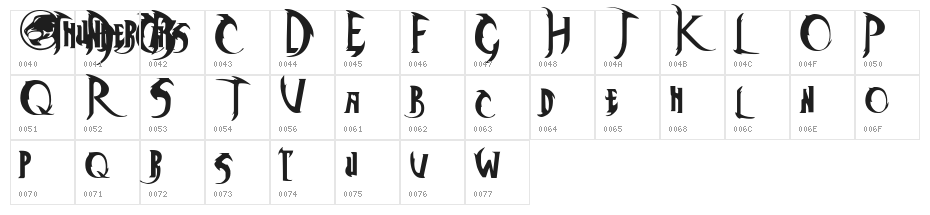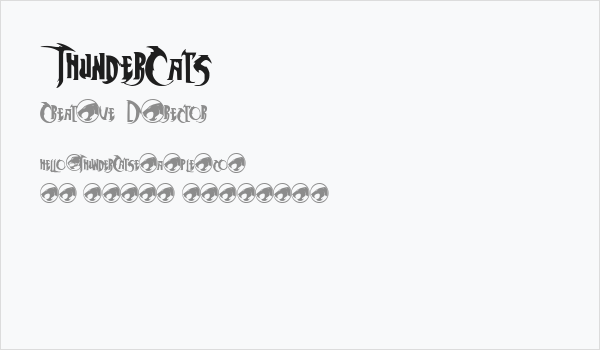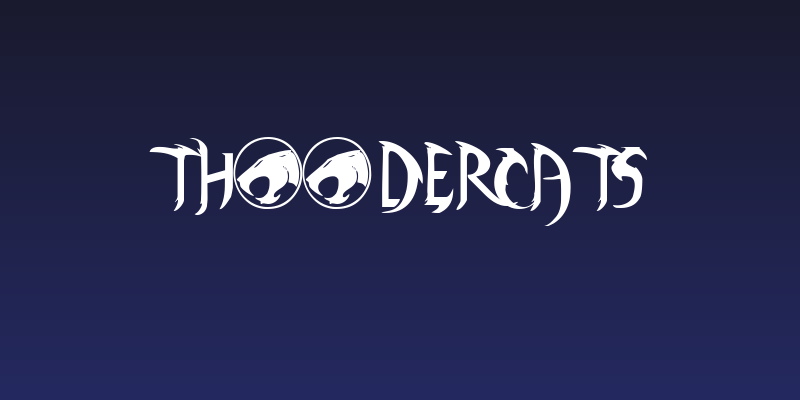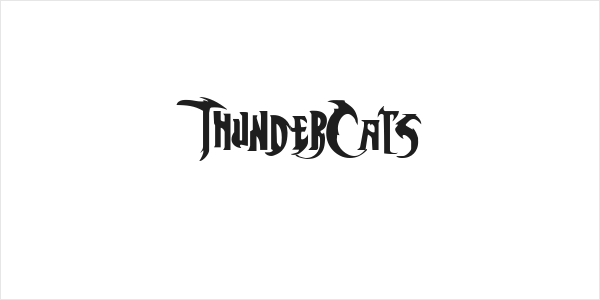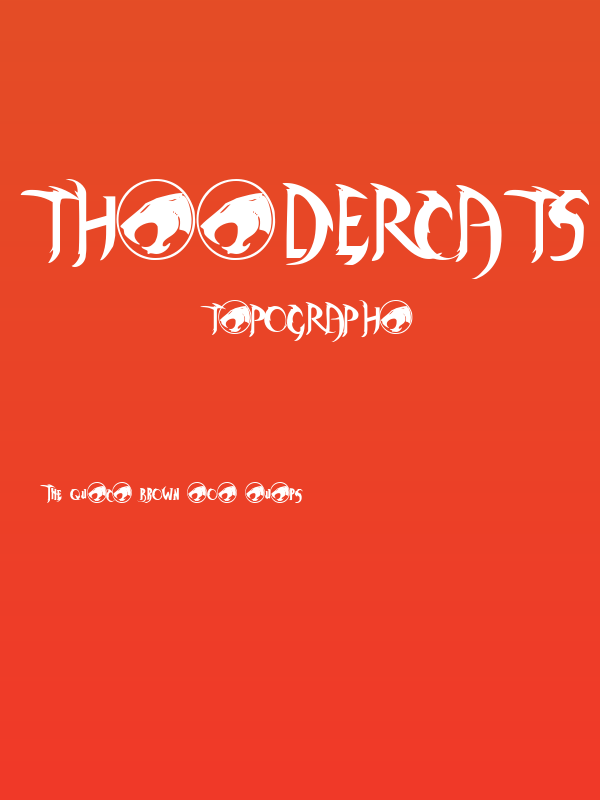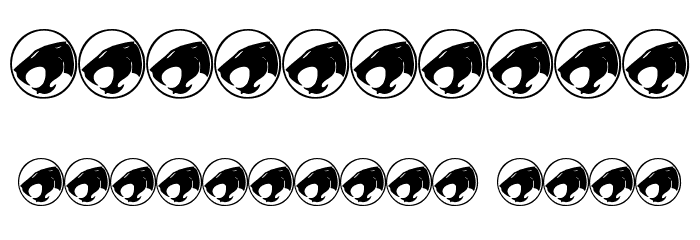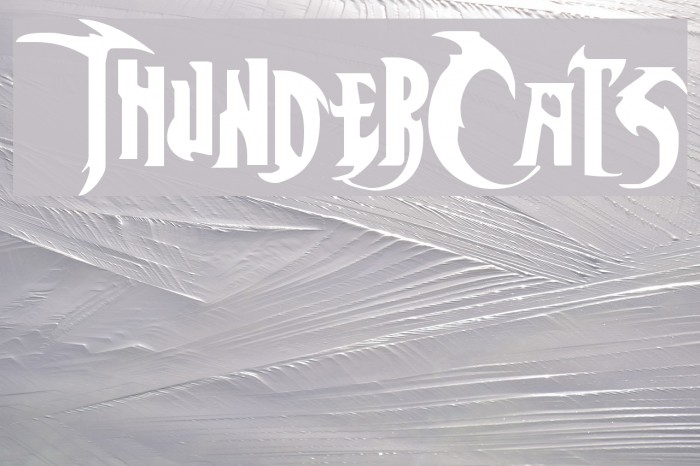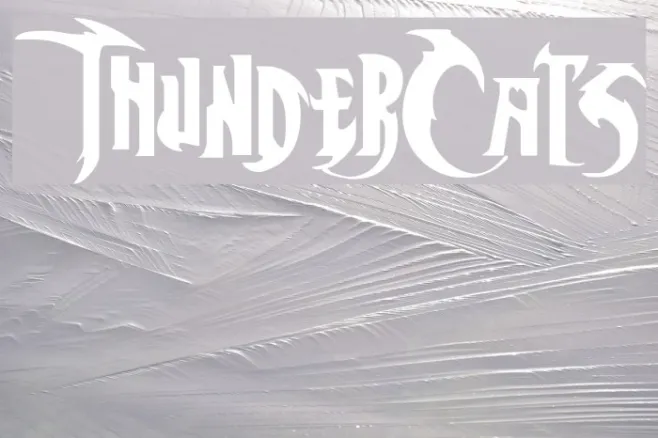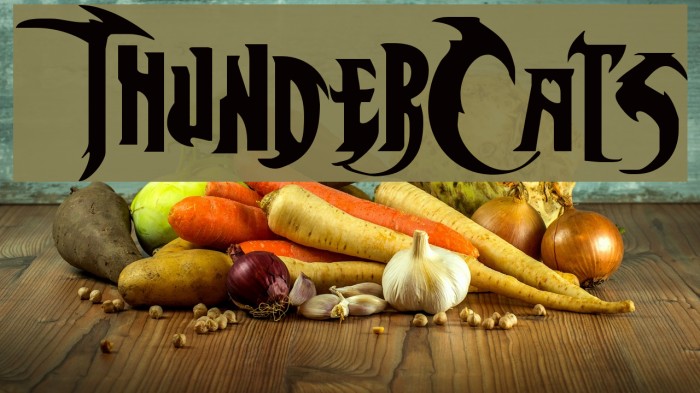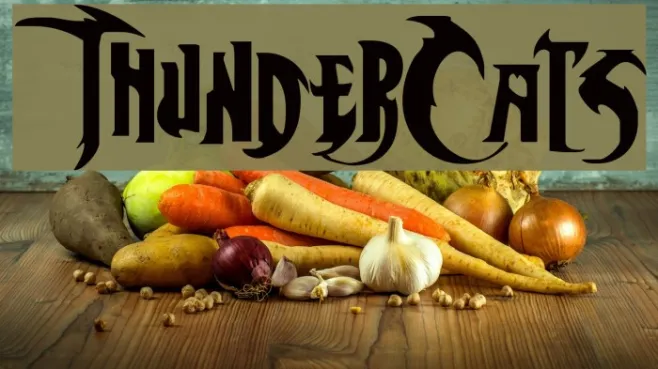
ThunderCats Font
ThunderCats Description
This font features a bold and dynamic design with sharp, angular edges and a sense of movement, reminiscent of a fierce and powerful aesthetic. The characters are stylized with a unique flair, incorporating elements that suggest speed and strength. The uppercase letters are particularly striking, with a strong presence that commands attention. The overall look is both modern and slightly retro, making it versatile for various creative applications. The font's design is consistent, with each letter maintaining the same energetic style, ensuring a cohesive appearance across any text.